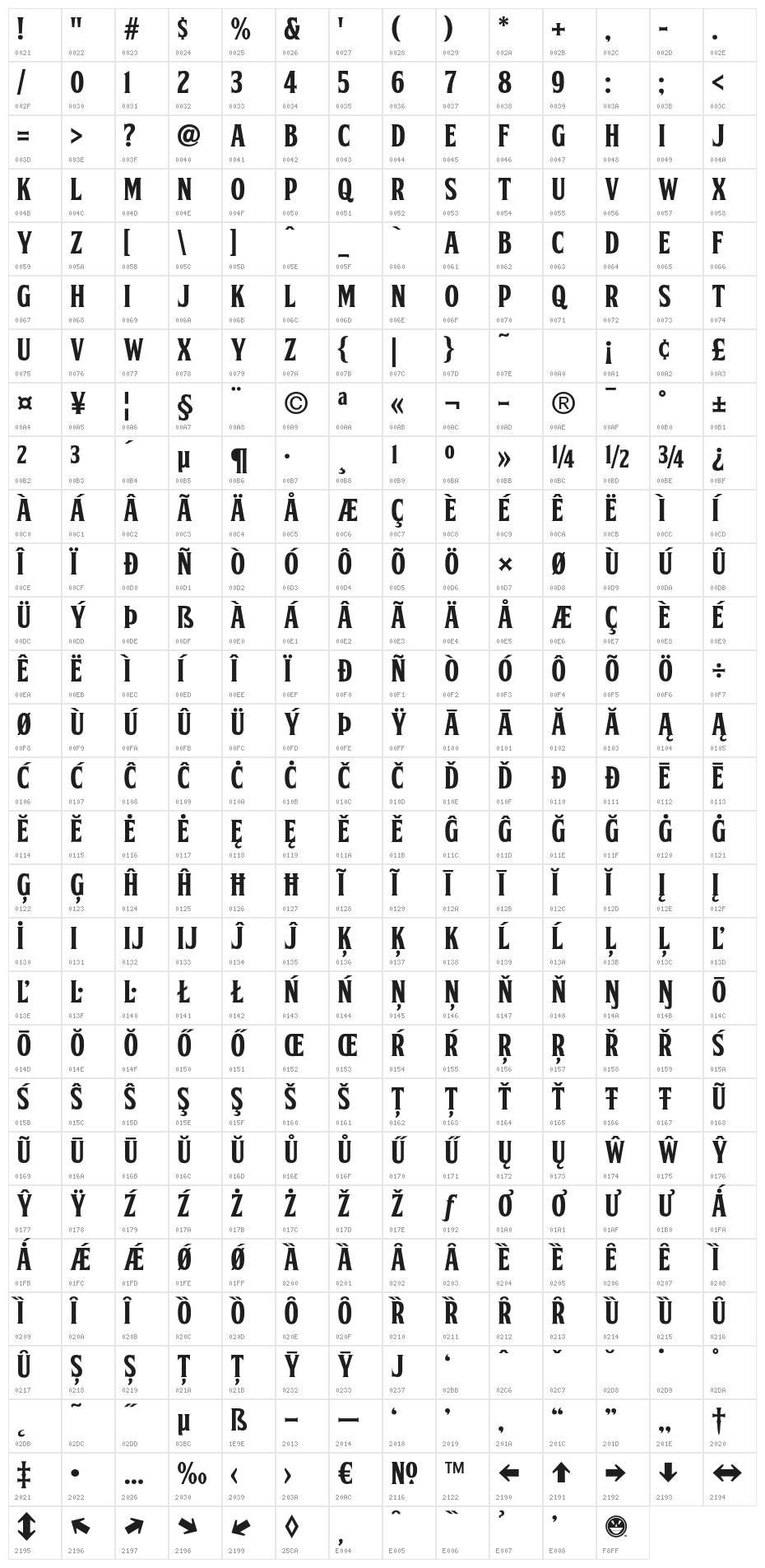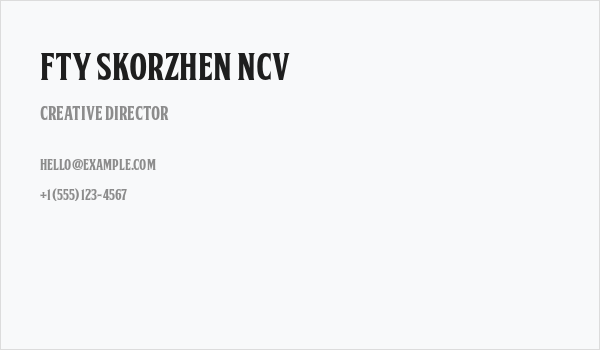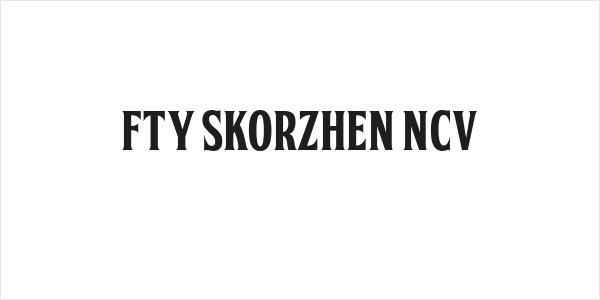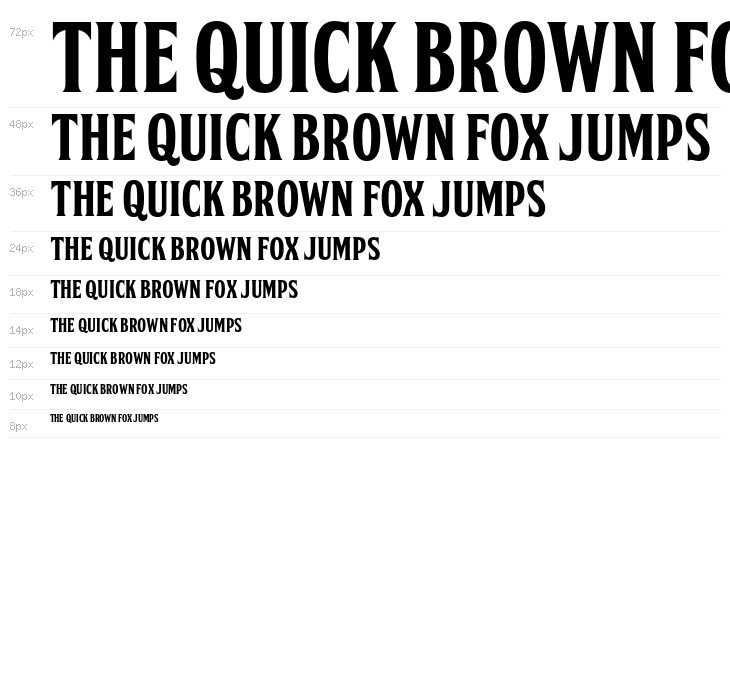
FTY SKORZHEN NCV Font
FTY SKORZHEN NCV Description
This font features bold, commanding characters with a strong presence, ideal for making a statement. The uppercase letters are particularly striking, with thick strokes and a slight curvature that adds a touch of elegance. The numbers and special characters maintain this bold style, ensuring consistency across all text elements. The overall design is reminiscent of vintage typefaces, yet it maintains a modern edge that makes it versatile for various applications.
| Proposed Projects | Ideal for branding, poster design, headlines, and any project requiring a bold, impactful typeface. |